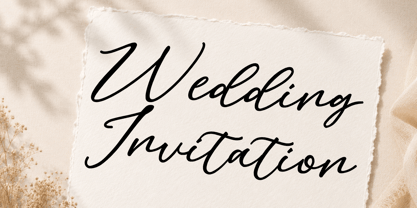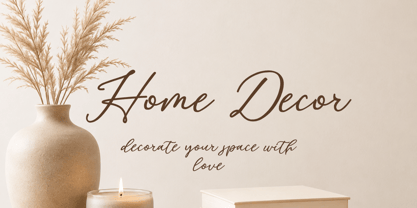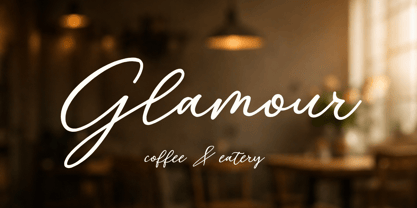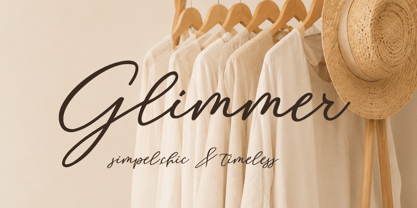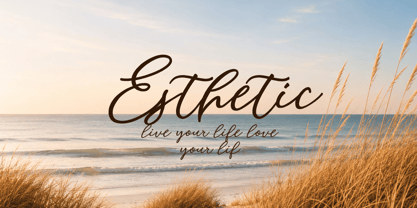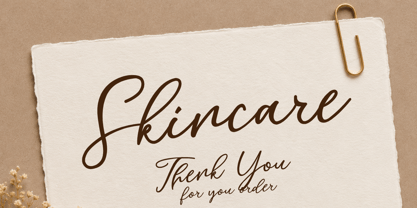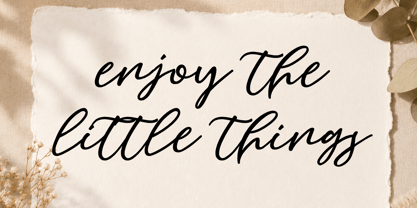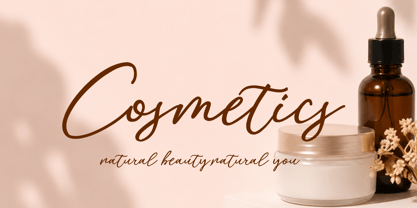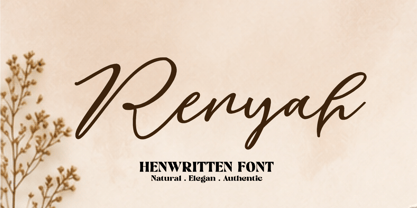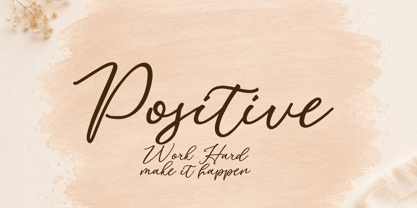
Renyah
by Letternesia studio
The Renyah Font Family was designed by Ta Siyo and published by Letternesia studio. Renyah contains 1 styles. More about this family
Renyah is a natural handwritten script font that brings warmth, elegance, and authenticity to every design. Created with smooth flowing strokes and a relaxed handwritten feel, it captures the beauty of genuine penmanship while remaining clean and highly legible.
Its graceful curves and effortless style make Renyah perfect for branding, logos, product packaging, café menus, cosmetic labels, wedding invitations, social media graphics, greeting cards, quotes, stationery, and other creative projects that call for a personal and sophisticated touch.
Whether you're designing for modern lifestyle brands or timeless handmade products, Renyah delivers a charming and versatile handwritten aesthetic that stands out with understated elegance.
Designers: Ta Siyo
Foundry: Letternesia studio